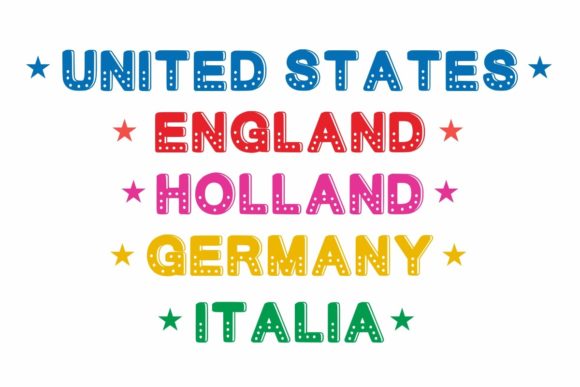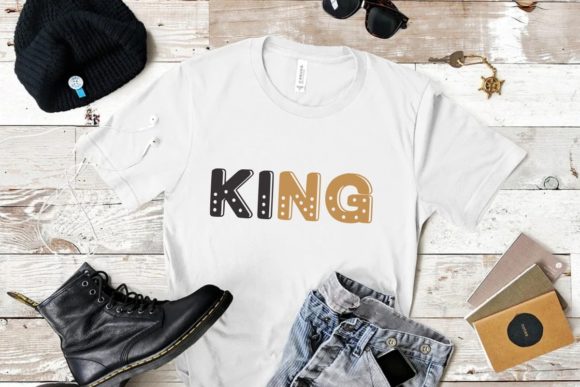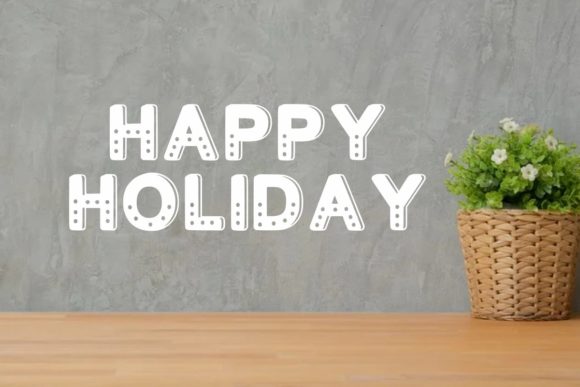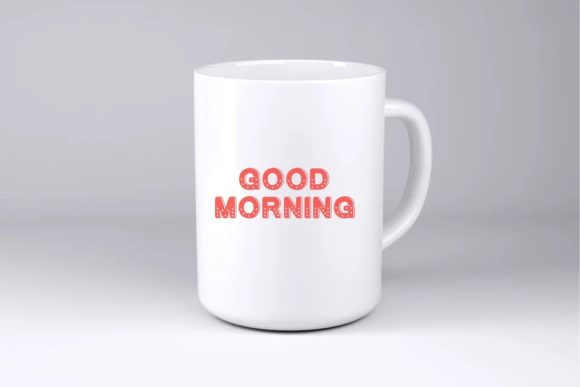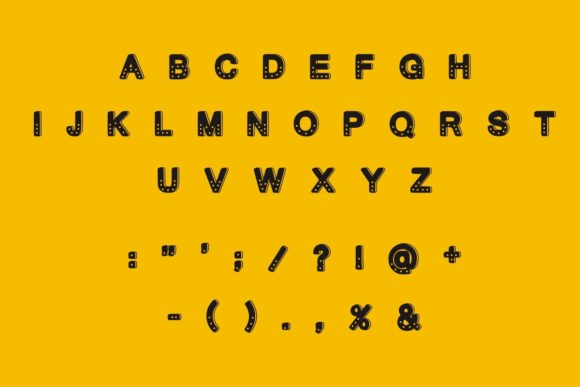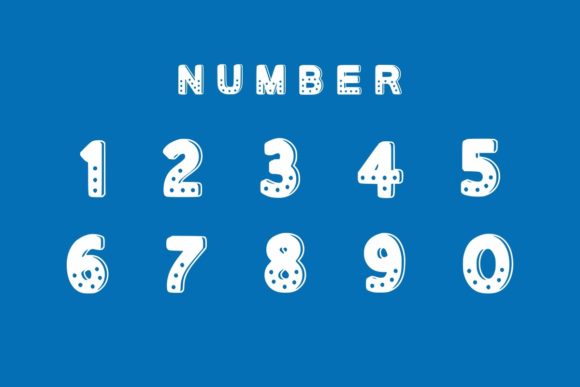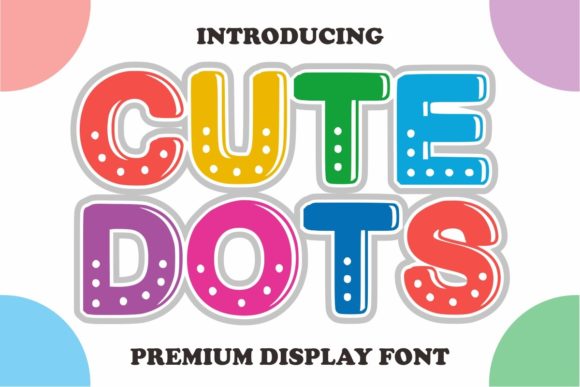
Cute Dots Font: The Ultimate Choice for Fun and Friendly Designs
Are you looking for a font that can add a touch of childish charm and friendliness to your designs? Look no further than Cute Dots Font! This adorable display font is specifically designed for kids and is perfect for a variety of creative projects. In this article, we’ll explore the features and benefits of Cute Dots Font and why it’s becoming a favorite among designers and crafters.
What is Cute Dots Font?
Cute Dots Font is a playful and fun display font that is easy to read and conveys impeccable friendliness. The font features rounded edges and a bubbly appearance, making it perfect for designs that require a touch of whimsy and charm. Whether you’re creating crafts, digital designs, text effects, social media posts, presentations, or greeting cards, Cute Dots Font is the perfect choice.
Key Features of Cute Dots Font
- Childish and Fun Design: Cute Dots Font is specifically designed for kids and has a playful, carefree vibe that’s perfect for designs that require a youthful touch.
- Easy-to-Read: The font is clear and legible, making it easy to read and understand, even for young children.
- Impeccable Friendliness: Cute Dots Font conveys a sense of friendliness and approachability, making it perfect for designs that require a warm and welcoming tone.
- Versatile: Cute Dots Font can be used for a variety of creative projects, from crafts and digital designs to presentations and greeting cards.
Benefits of Using Cute Dots Font
So, why should you choose Cute Dots Font for your designs? Here are just a few benefits of using this adorable font:
- Adds a Touch of Whimsy: Cute Dots Font adds a playful touch to your designs, making them more engaging and fun.
- Perfect for Kids’ Designs: The font is specifically designed for kids, making it perfect for designs that require a childish charm.
- Easy to Pair with Other Fonts: Cute Dots Font is easy to pair with other fonts, making it versatile and flexible.
- Great for Social Media: The font is perfect for social media posts, particularly on Instagram, where visuals are key.
Creative Ways to Use Cute Dots Font
Cute Dots Font is a versatile font that can be used in a variety of creative ways. Here are a few ideas to get you started:
- Crafts: Use Cute Dots Font to add a touch of whimsy to your craft projects, such as handmade cards, gift tags, and scrapbooking.
- Digital Designs: The font is perfect for digital designs, such as social media graphics, blog posts, and website headers.
- Text Effects: Use Cute Dots Font to create fun and playful text effects, such as bouncy letters and colorful titles.
- Presentations: Add a touch of friendliness to your presentations with Cute Dots Font, making them more engaging and fun.
- Greeting Cards: The font is perfect for creating adorable greeting cards for kids, birthdays, and special occasions.
Cute Dots Font is a fun and playful display font that’s perfect for designers and crafters looking to add a touch of childish charm and friendliness to their designs. With its easy-to-read design, impeccable friendliness, and versatility, Cute Dots Font is sure to become your go-to choice for a variety of creative projects. So why not give it a try and see how this adorable font can elevate your designs?